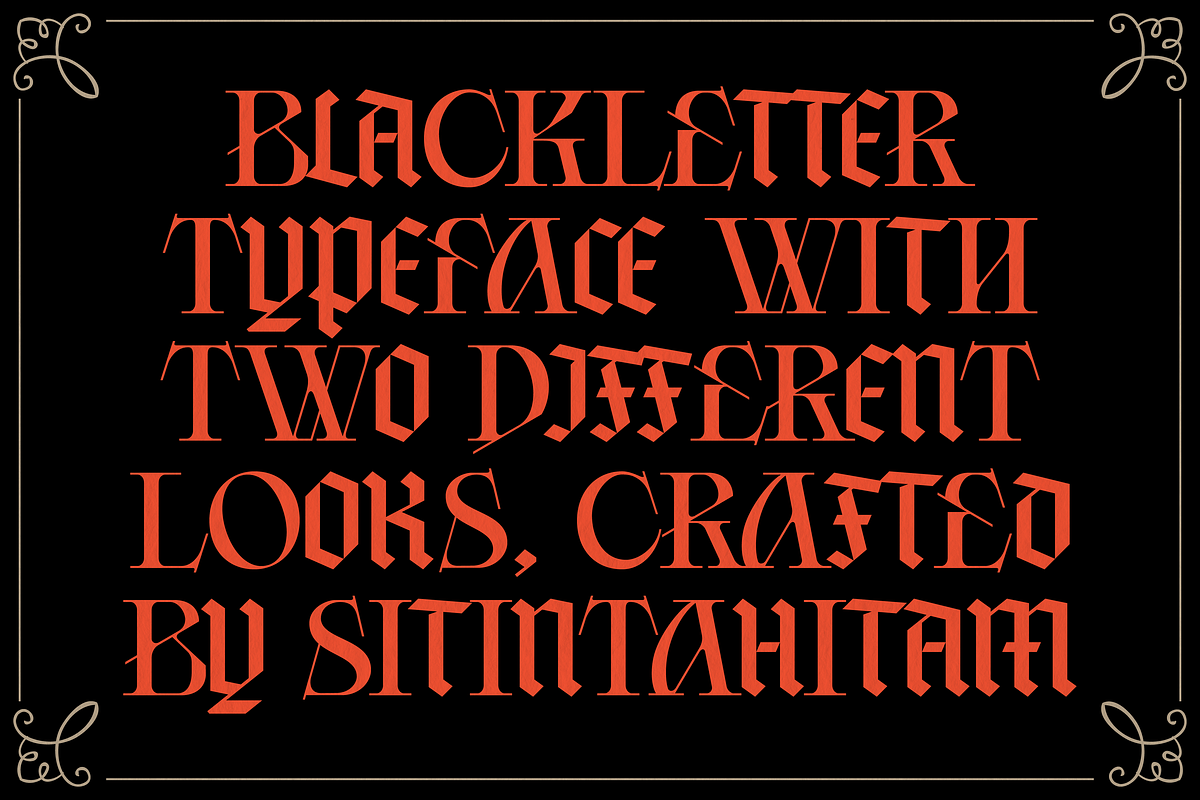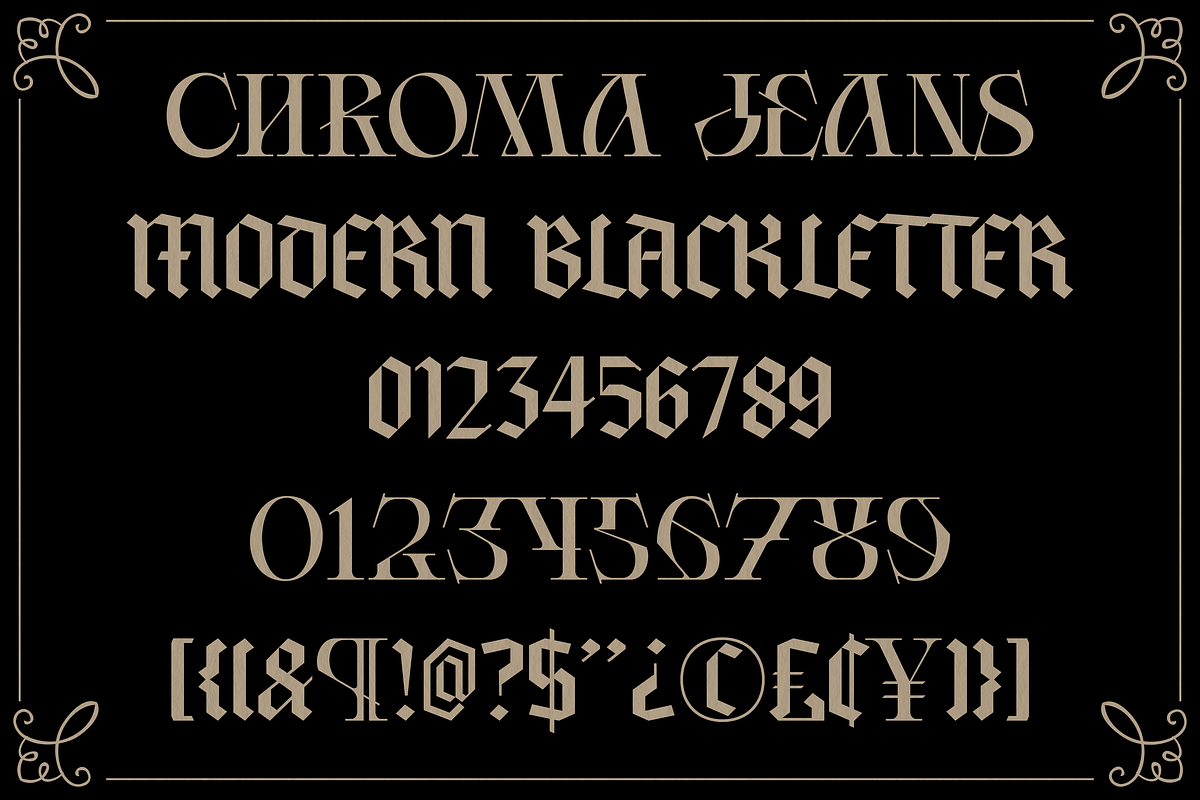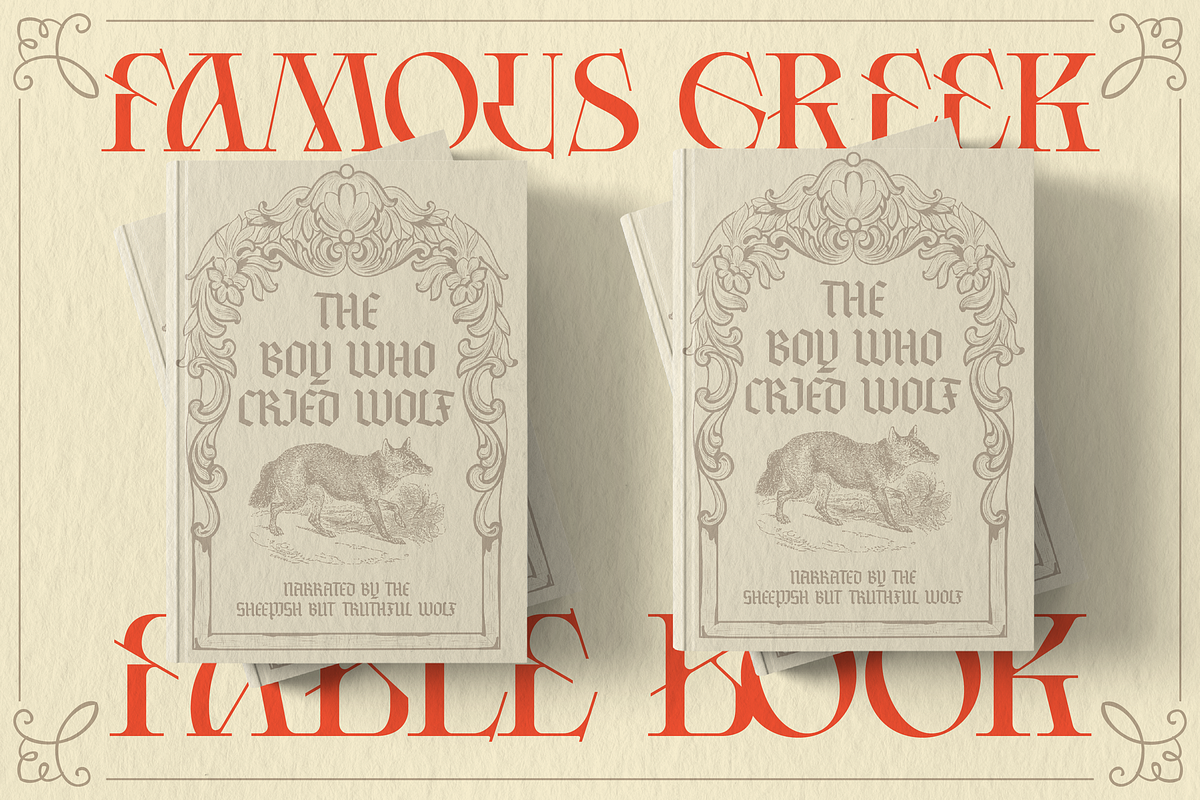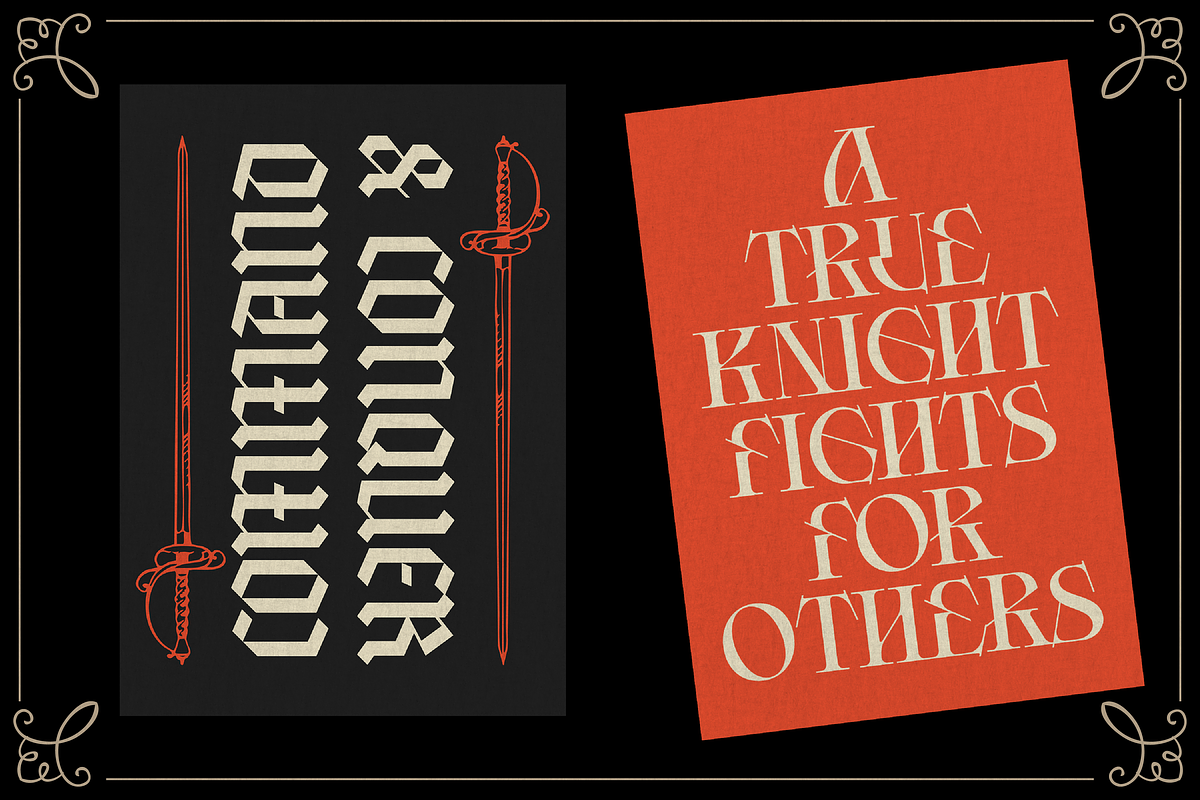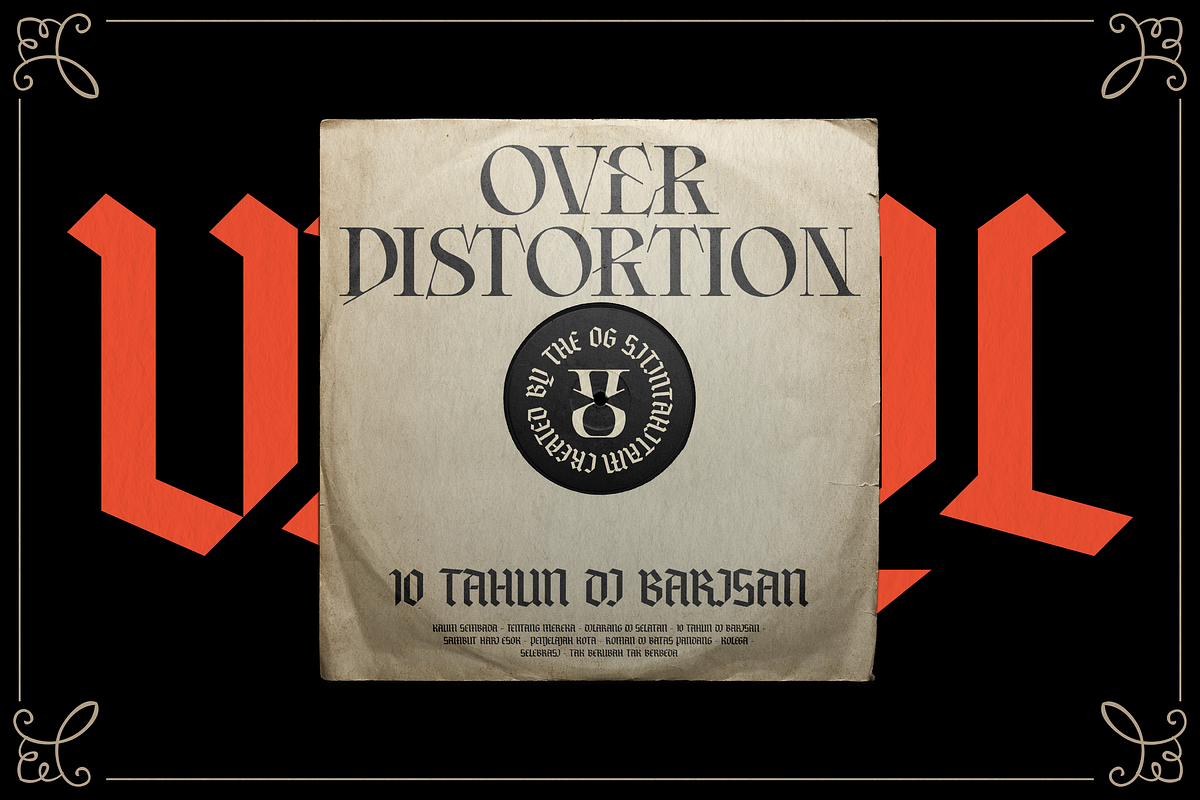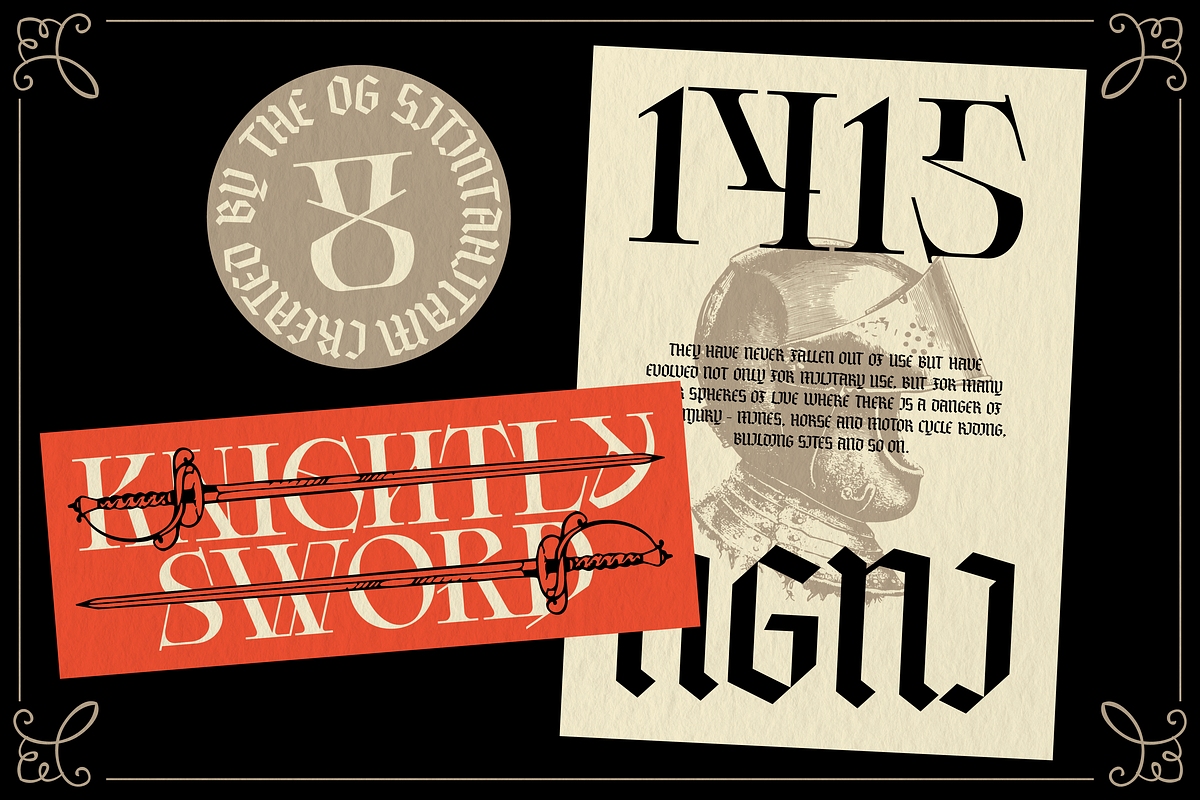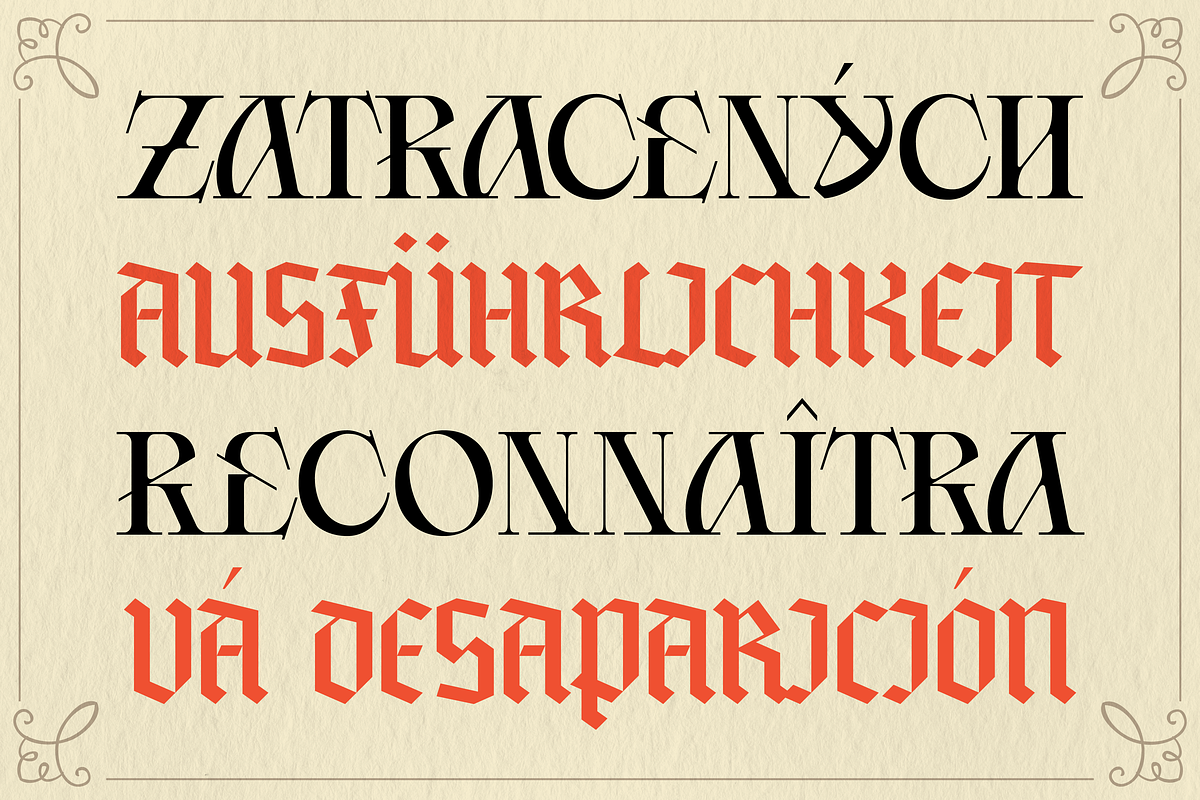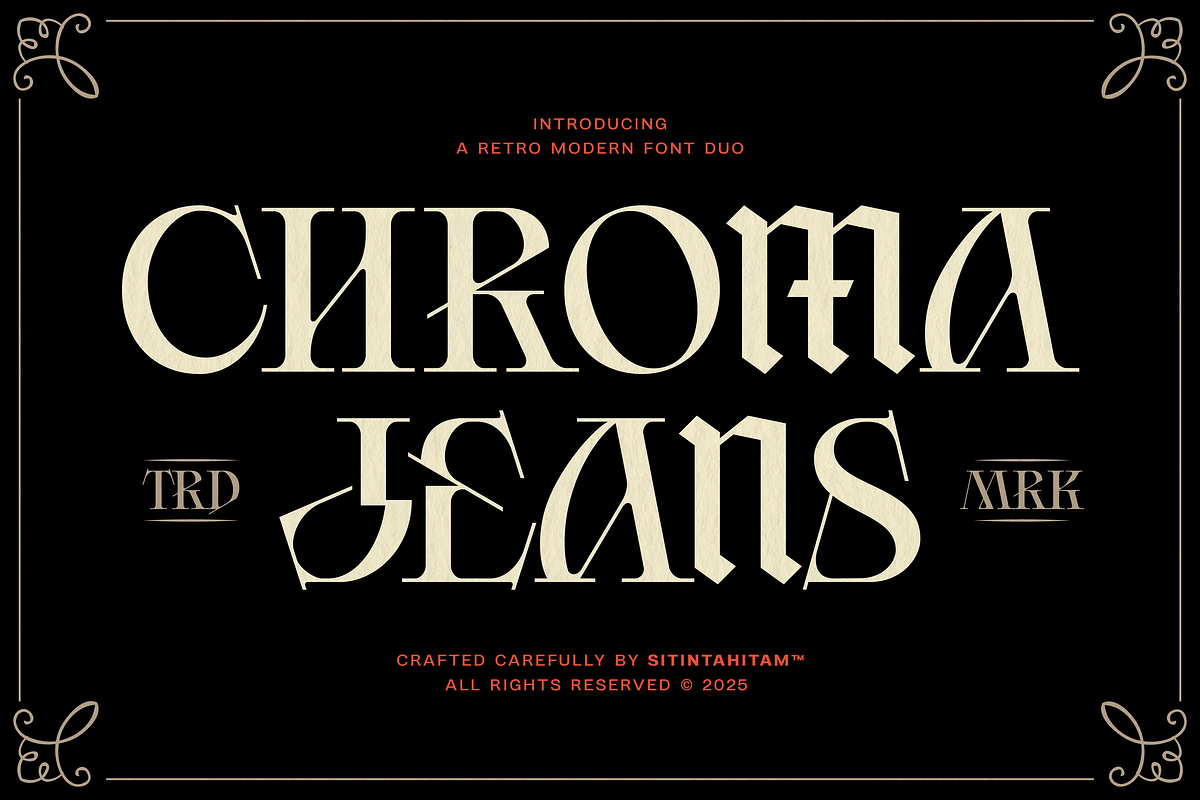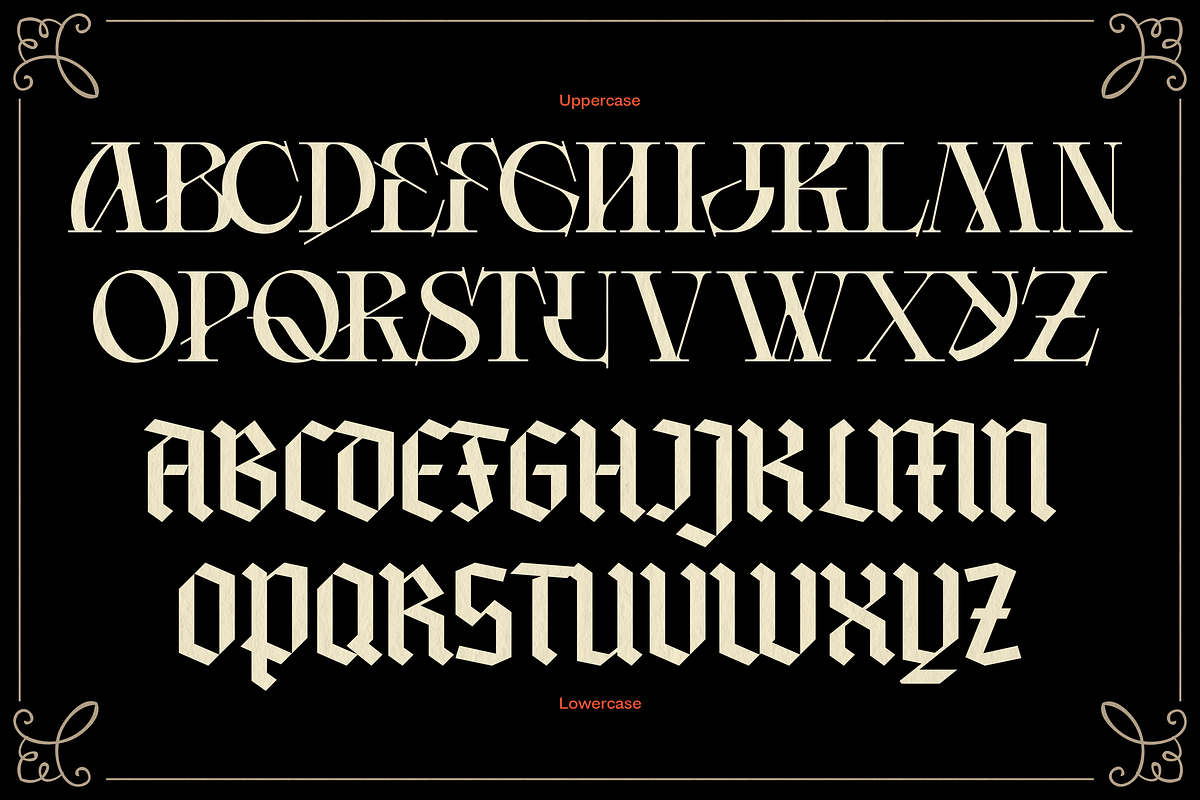
Chroma Jeans
Chroma Jeans is inspired by a fusion of futuristic graphics and retro blackletter style. This font offers two distinct looks: a futuristic typeface in uppercase and a blackletter style in lowercase. Chroma Jeans is perfect for various design projects, including posters, book covers, music branding, merchandise, and more.